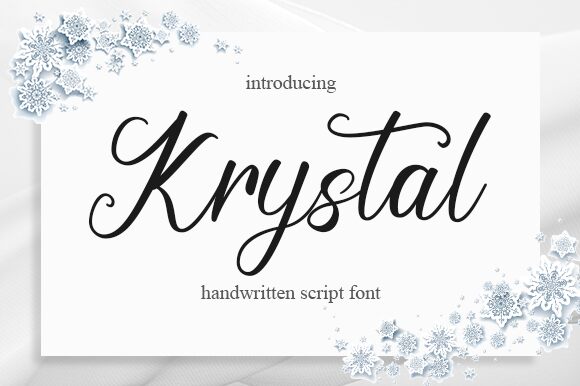
Krystal
Krystal, the stunning calligraphy font designed by Aldi Raya Pradipta, is a versatile and elegant typeface perfect for a range of creative projects. Its semi-light weight adds to its graceful appearance, making it ideal for wedding invitations, logos, branding materials, and more. This font's flowing strokes and intricate details create a sense of luxury and sophistication that will elevate any design. Whether you're creating a poster or designing a website, Krystal's timeless appeal will add an extra layer of refinement to your project. Try it out today and see how this gorgeous font can transform your work.